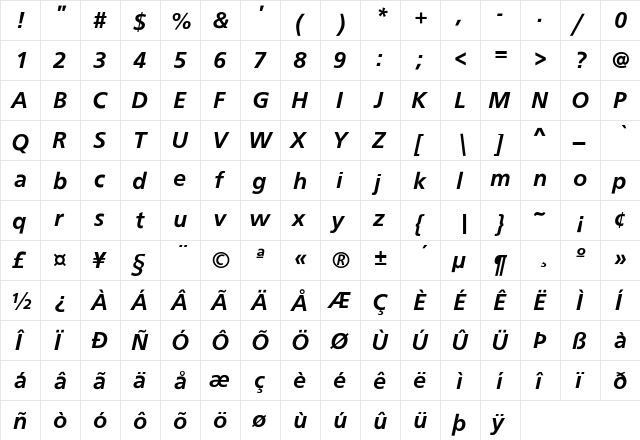
FrugalSans-BoldItalic Regular Font Preview
FrugalSans-BoldItalic Regular
FrugalSans-BoldItalic Regular Font Details
Design Context for FrugalSans-BoldItalic Typeface
FrugalSans-BoldItalic is a composed and adaptable typeface that performs quietly and consistently across a wide range of design contexts. The slanted form adds forward momentum and visual energy. Its bold stroke weight gives it real presence on the page.
Pro Tip: Try FrugalSans-BoldItalic for annotation and caption copy alongside an upright companion — the contrast in angle creates a dynamic but ordered typographic system.